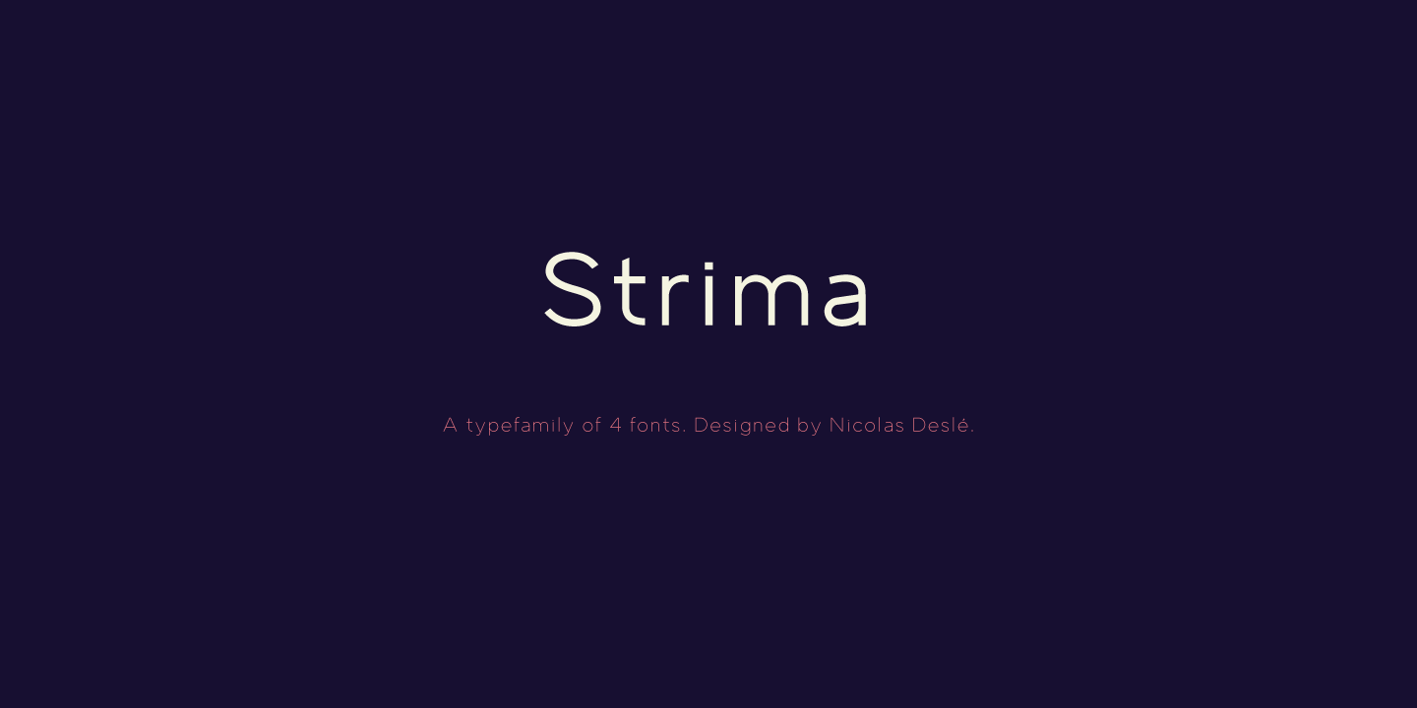
Strima Font
Please note that Strima Font must be purchased for commercial use. You are welcome to download and test this font for personal and non-commercial projects at no cost. This precise, geometric sans serif typeface is perfectly suited for a wide range of minimalist and professional design applications, including corporate identity, clean and modern website text, user interface (UI) design, stylish editorial layouts, mobile application development, and any project that prioritizes legibility, simplicity, and a contemporary, structured aesthetic.
The reason Strima Font is genuinely exciting is its dedication to minimalism combined with maximum professional functionality. It is meticulously designed with a geometric base, offering crisp lines and balanced forms that ensure exceptional readability in both display and continuous text sizes. With over 1000 glyphs and extensive language support, Strima Font provides full professional typographic features, making it a reliable and versatile workhorse that effortlessly communicates modern sophistication and clarity across all media.
The Strima Font family is highly focused and efficient, offering four distinct weights to establish a clear visual hierarchy: Light, Book, Medium, and Bold. This four-style structure provides the perfect range for designers to differentiate headlines, body copy, and captions while maintaining a unified, minimalist look. For a clean, geometric, and perfectly legible font solution, secure your Strima Font Free Download today.